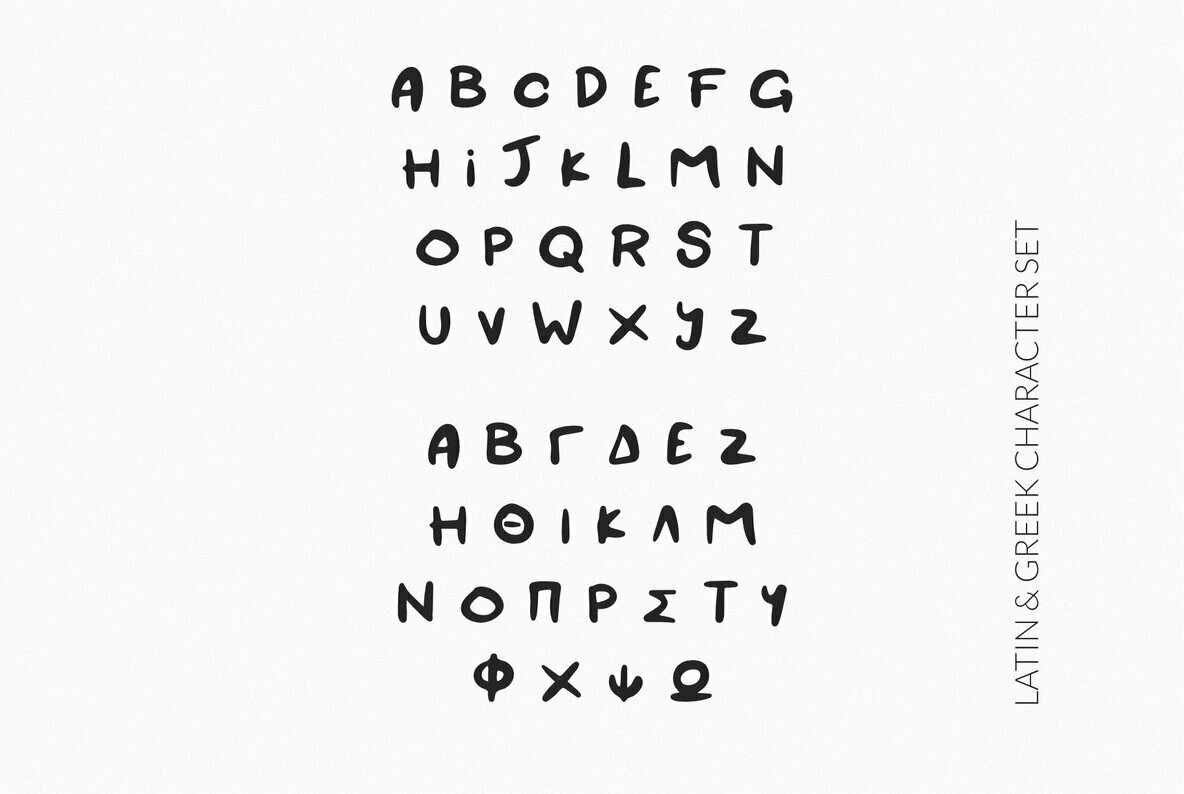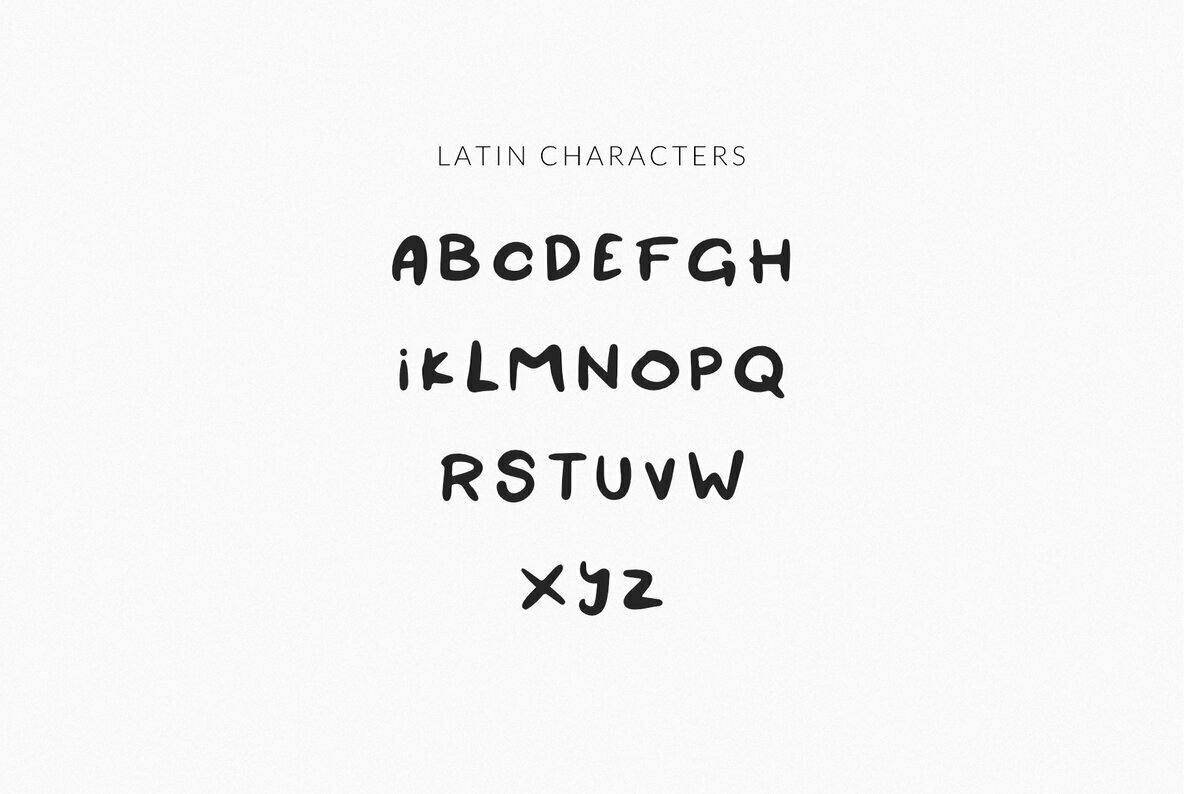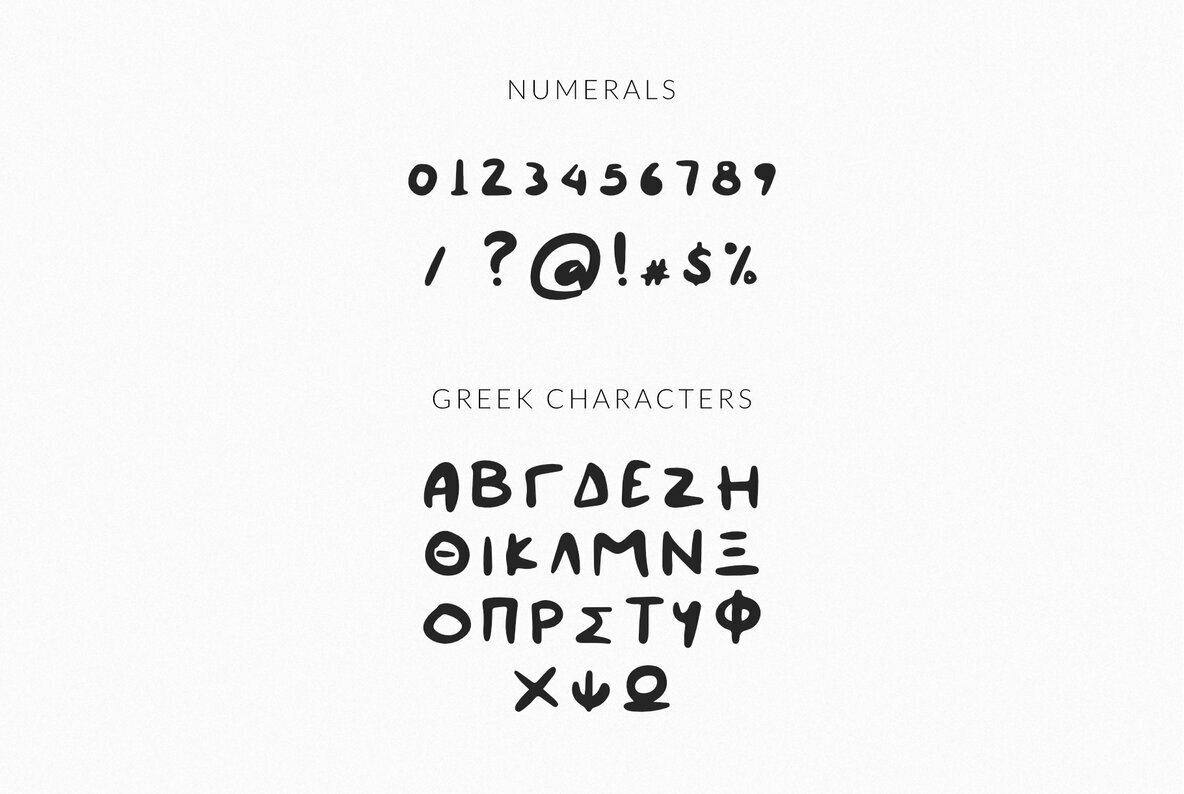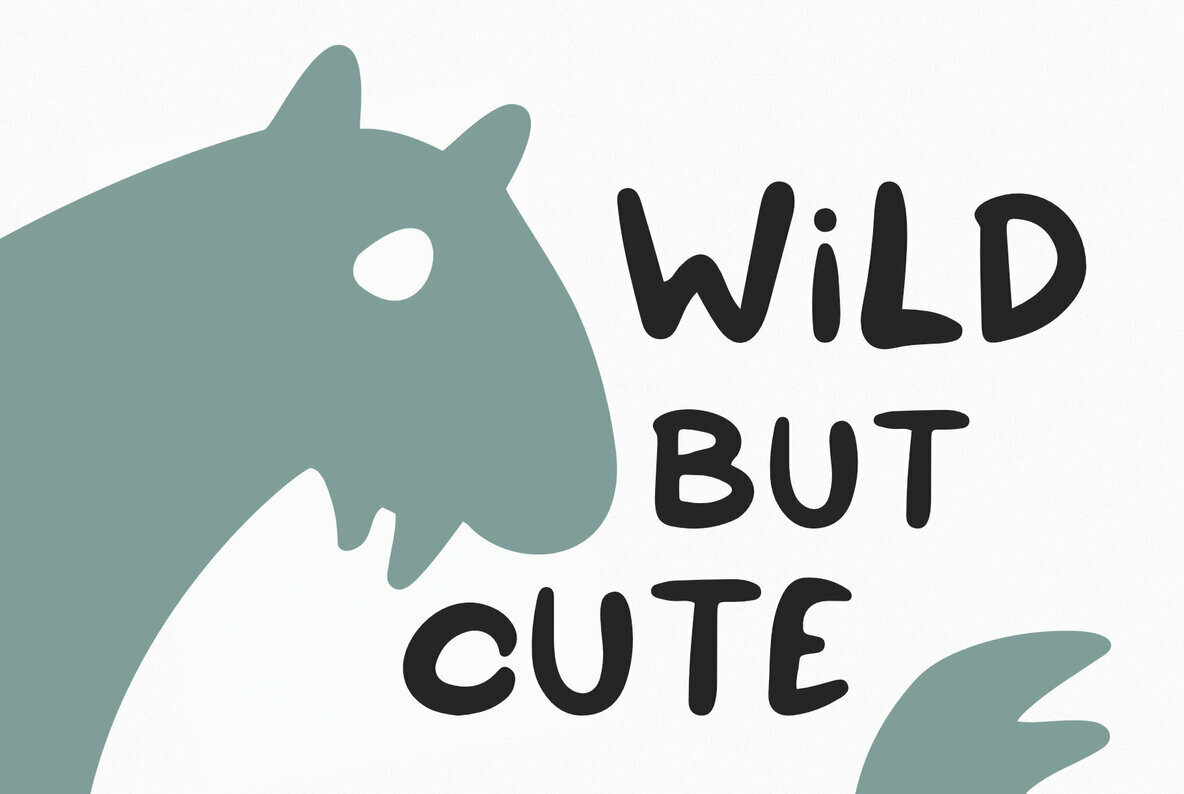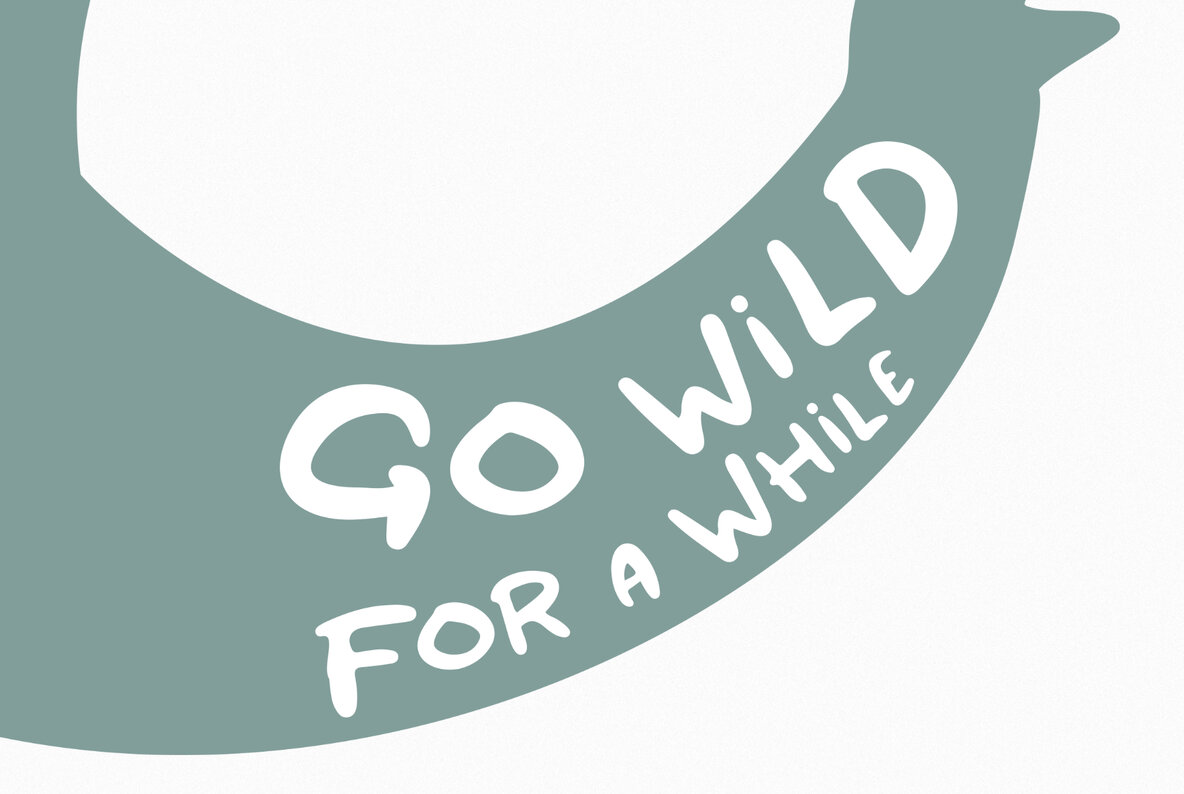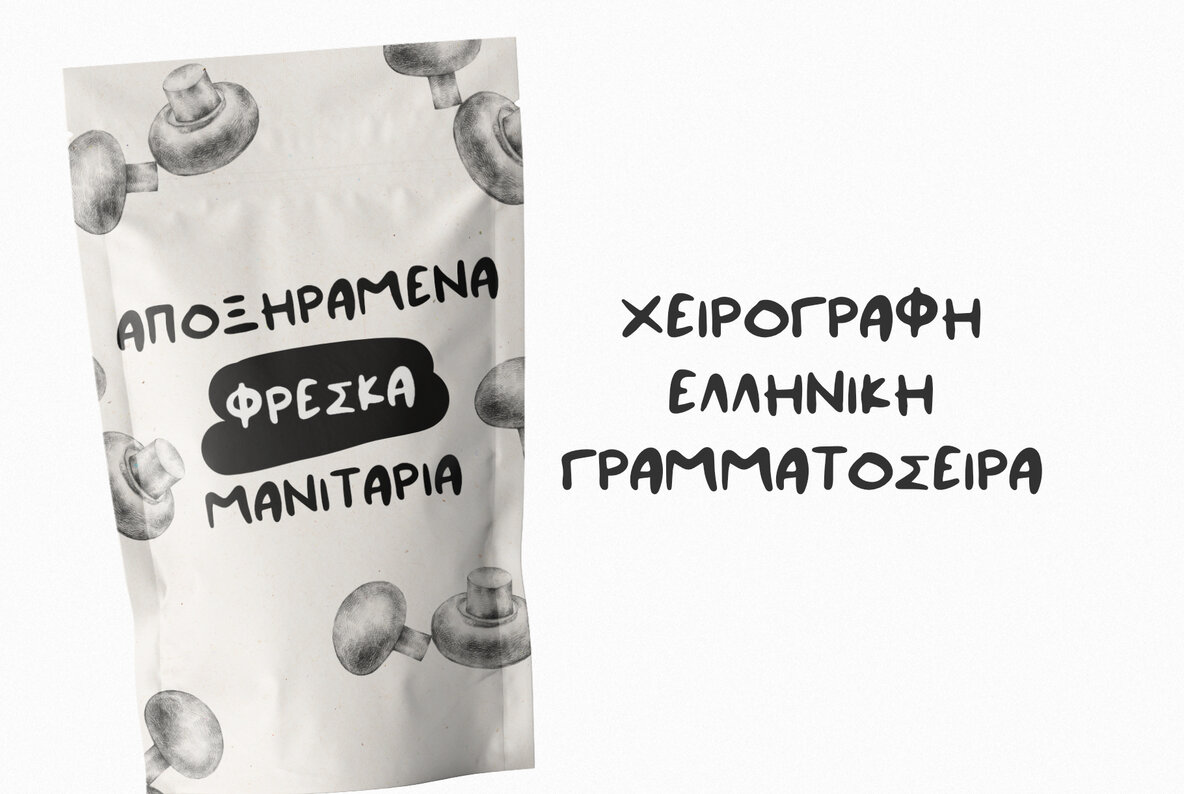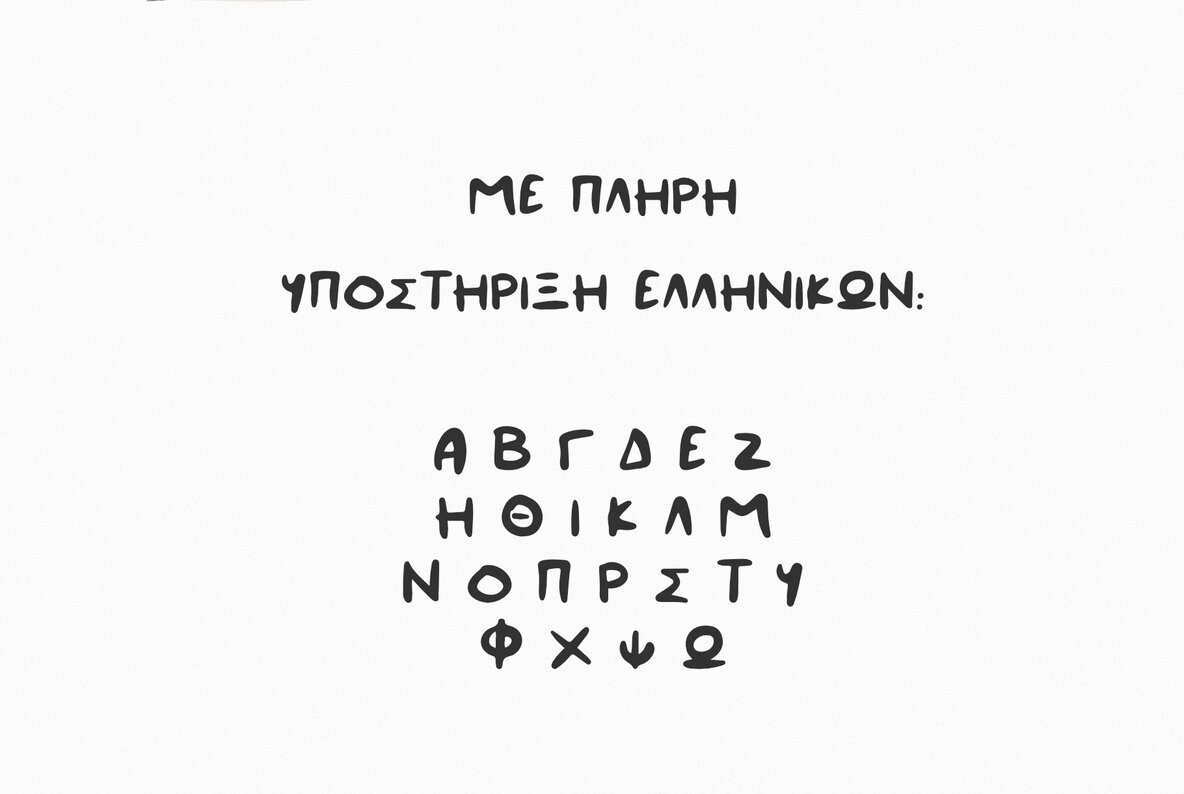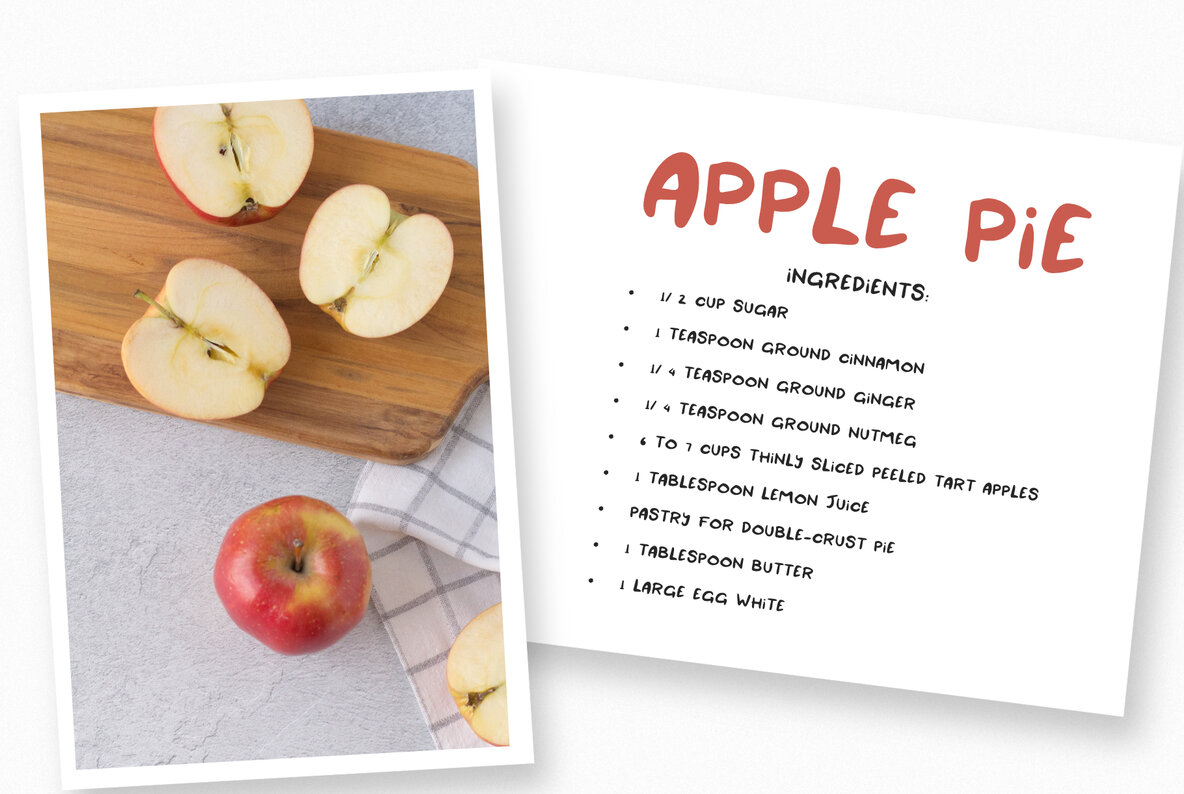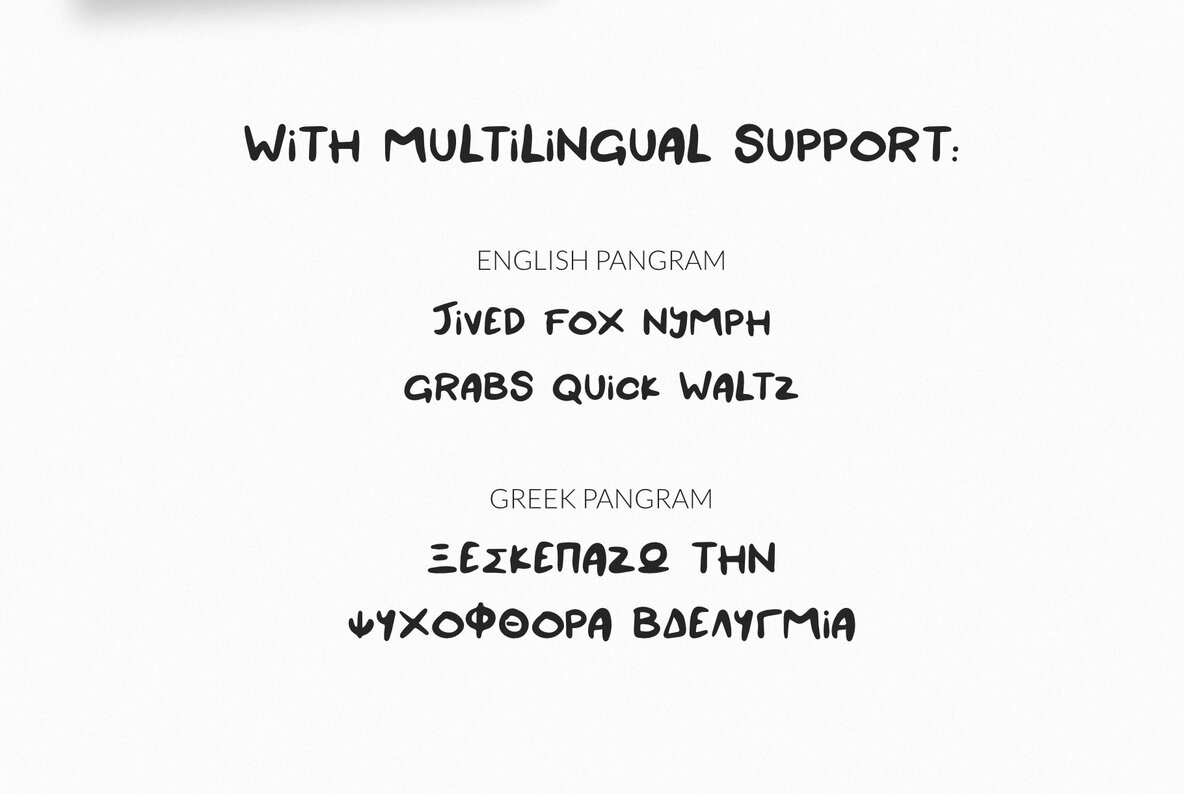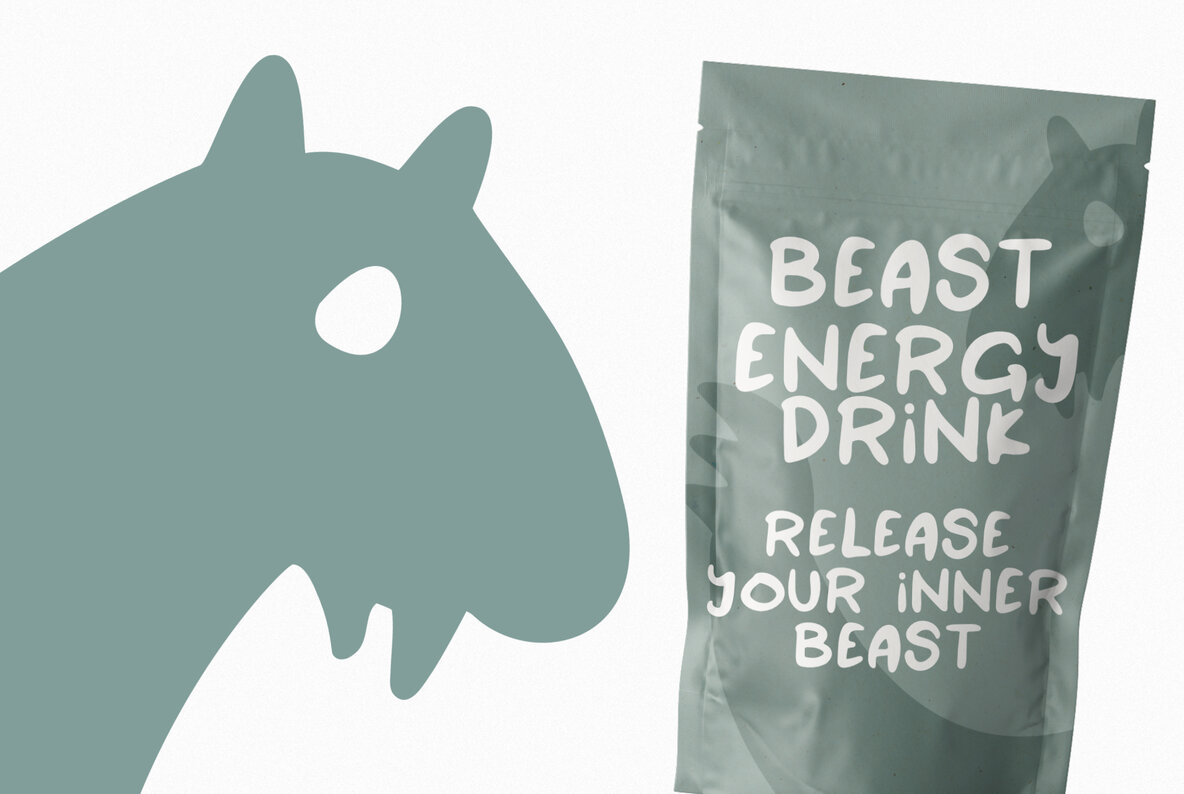
AKAKIOS Font
NF AKAKIOS Regular
AKAKIOS is a delightful handmade typeface exuding a unique character that brings personality to a wide array of projects. From hand-written quotes to product packaging, its versatility makes it an excellent choice for both personal and branding ventures.AKAKIOS: Hand-made Font with Distinctive Charm